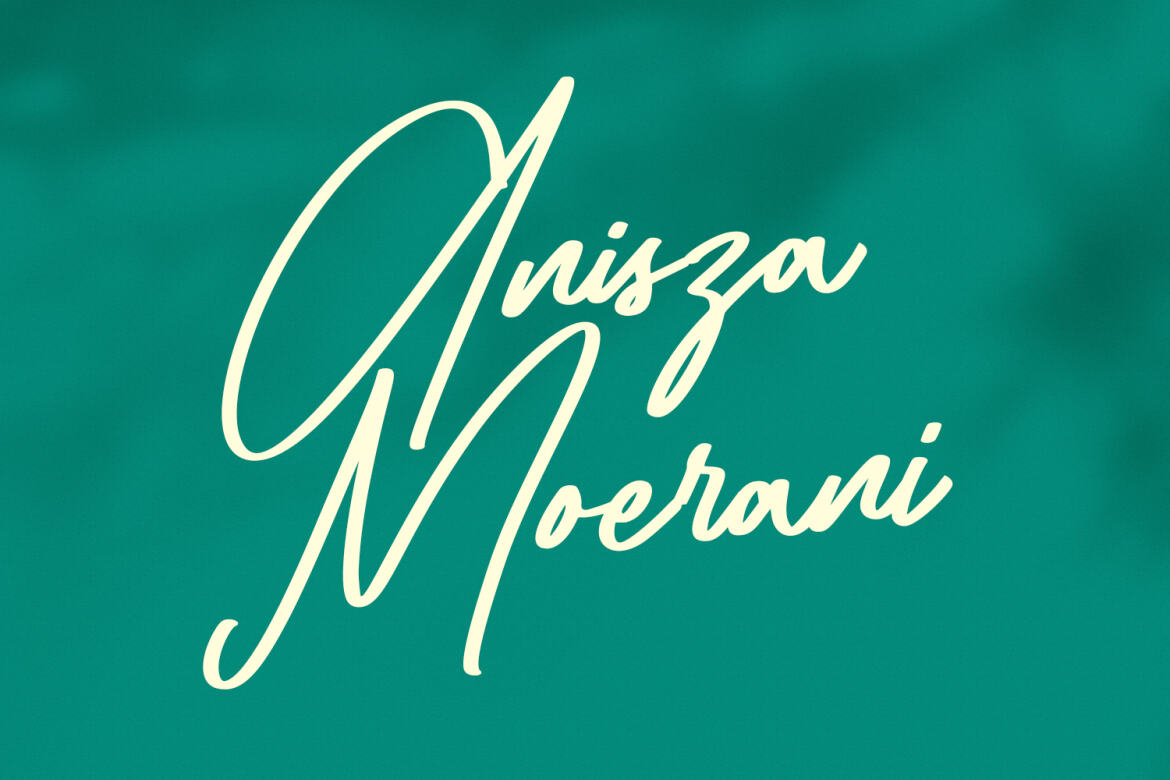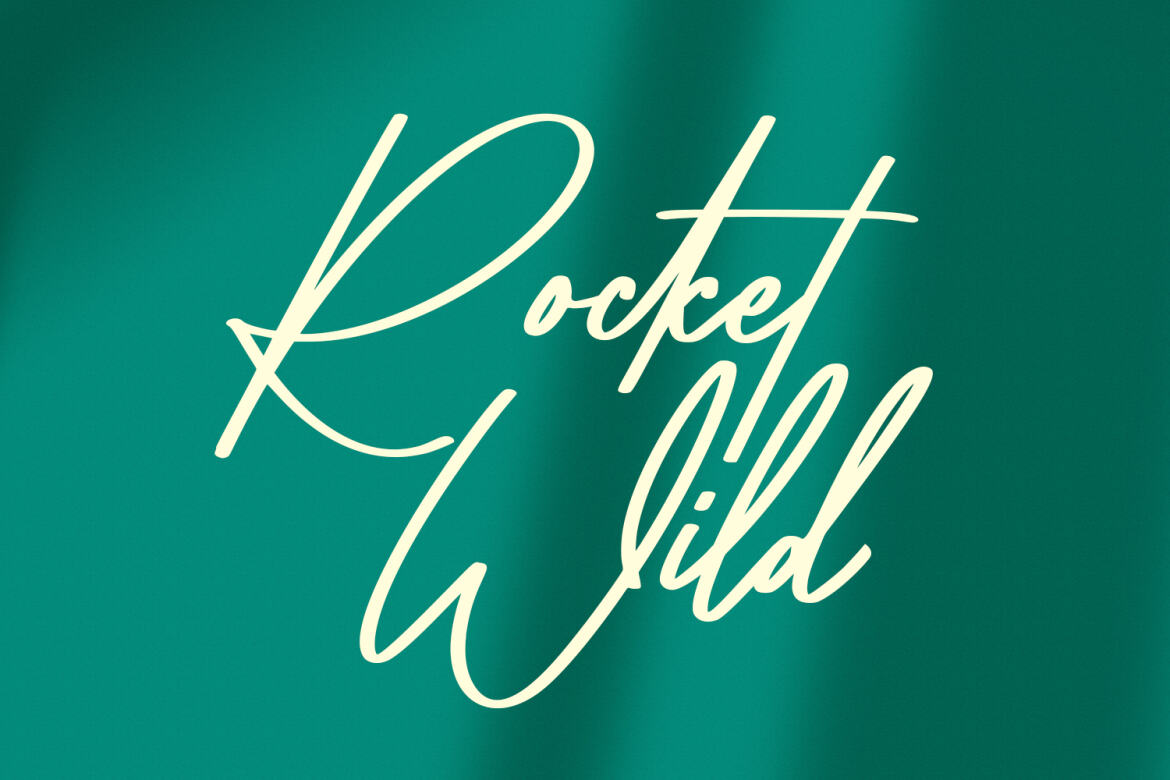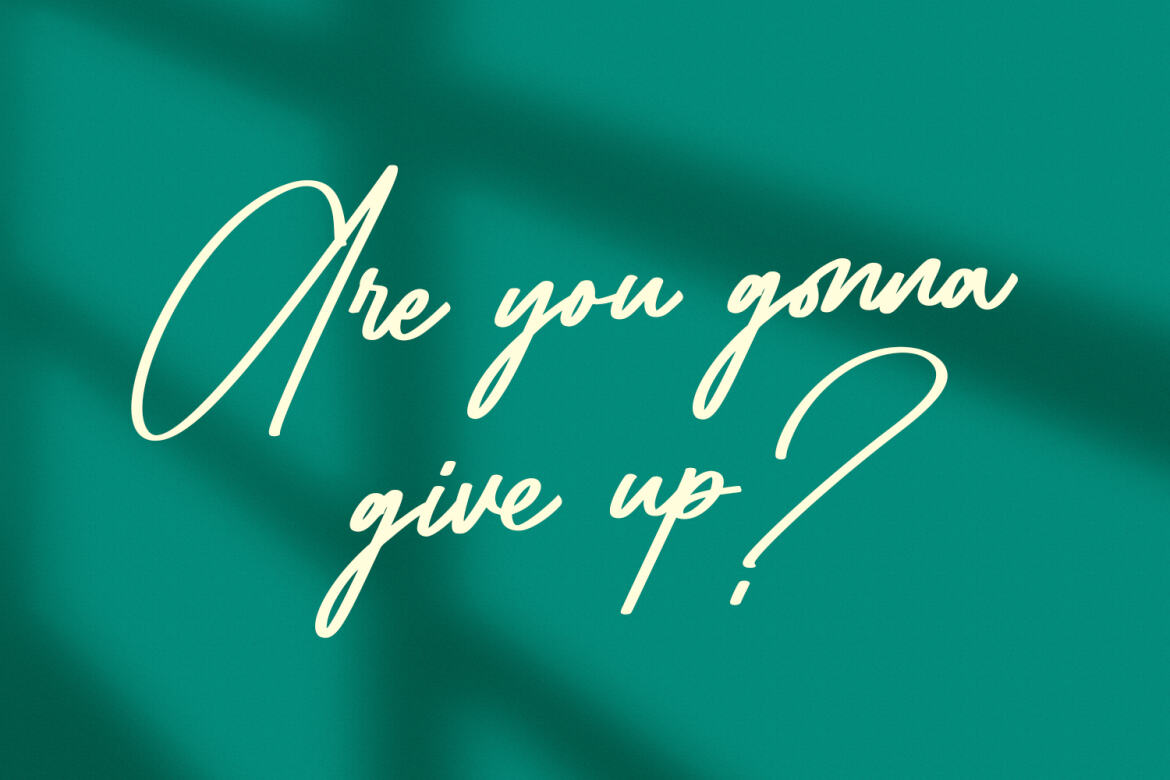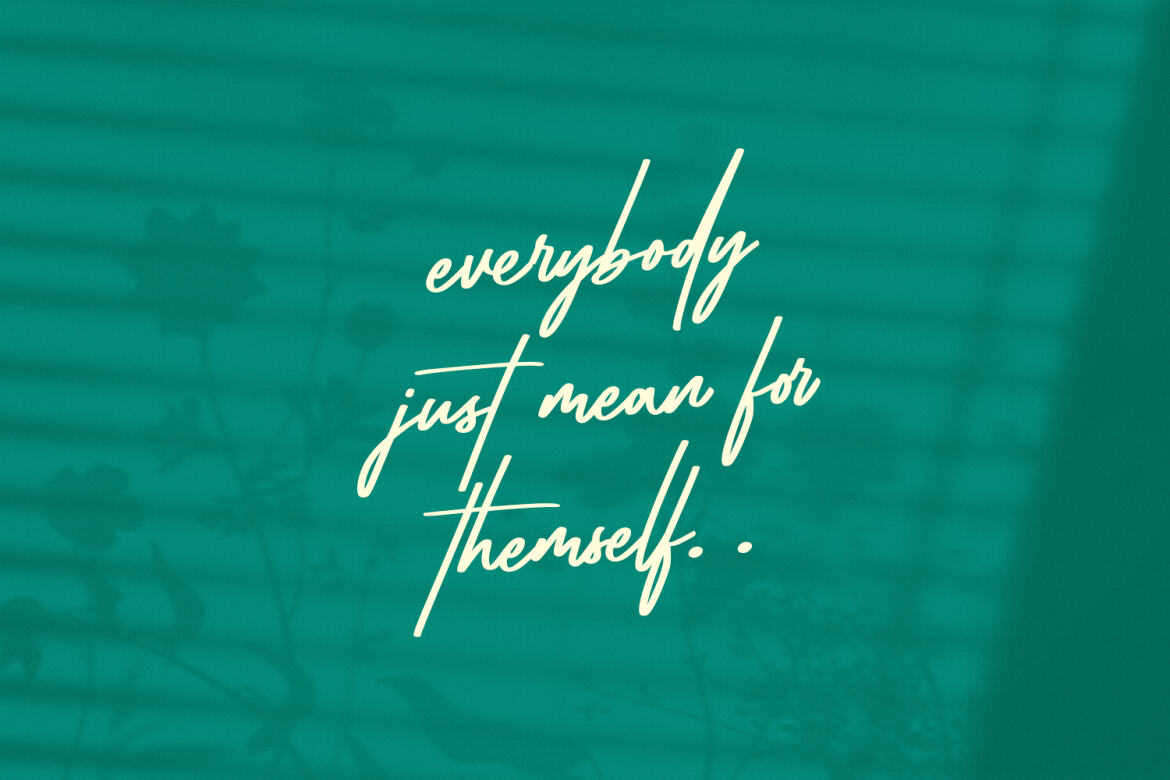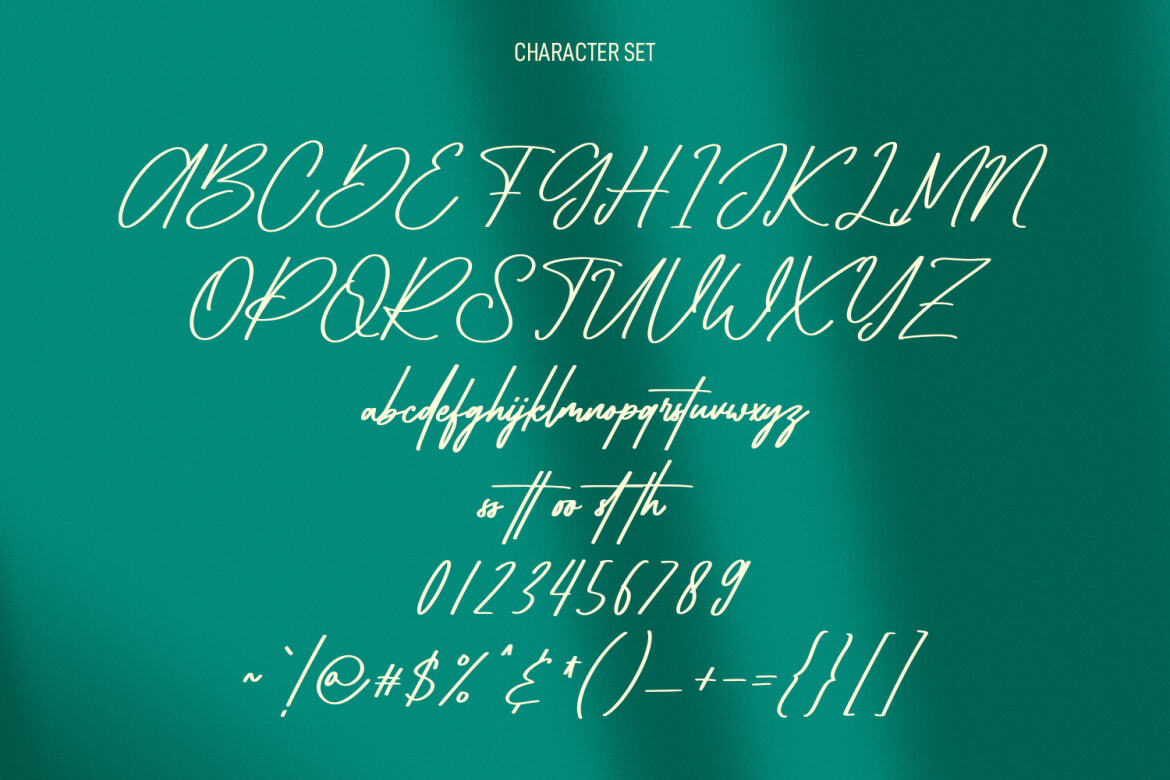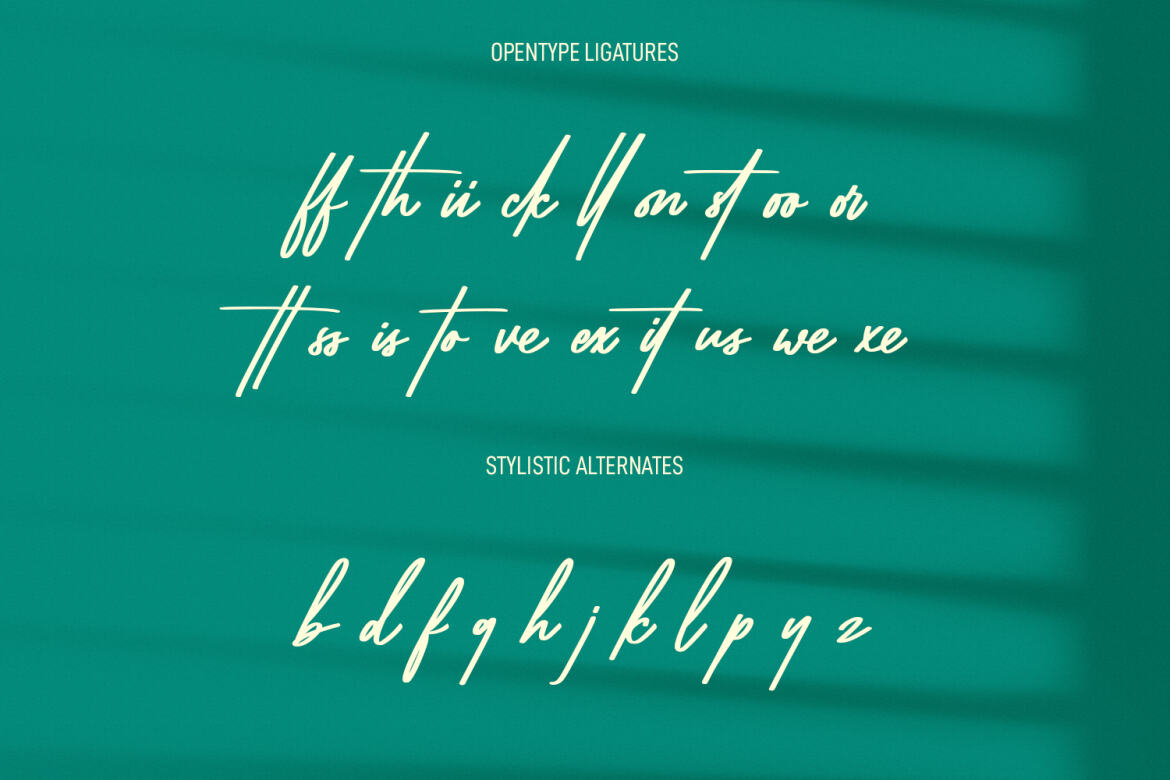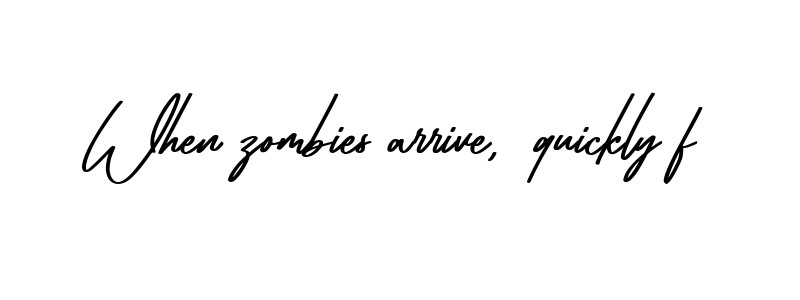
Blywoofs FREE Signature Font
Blywoofs
Blywoofs is a fancy signature script font. With regular felt-tip stroke, fun character with a bit of ligatures. To give you an extra creative work. Blywoofs font support multilingual more than 100+ language. This font is good for logo design, Social media, Movie Titles, Books Titles, a short text even a long text letter and good for your secondary text font with sans or serif. Make a stunning work with Blywoofs font.